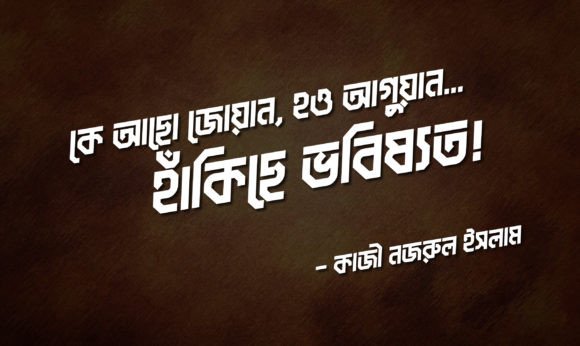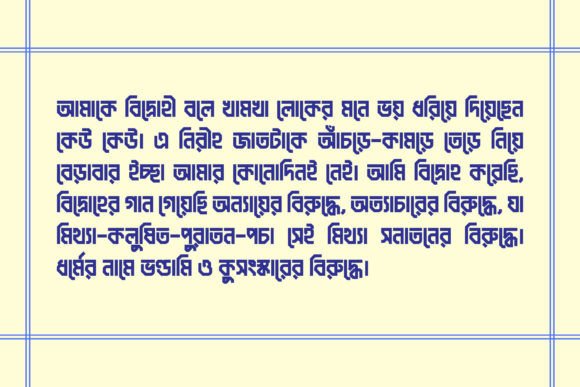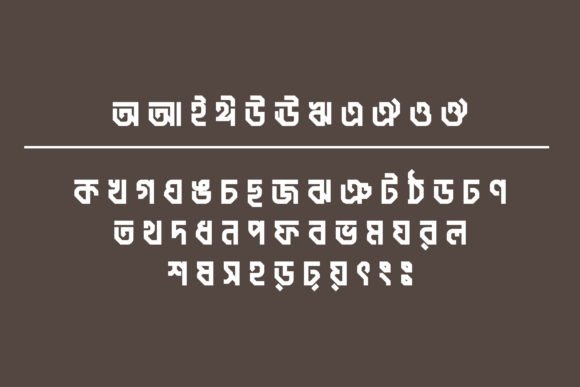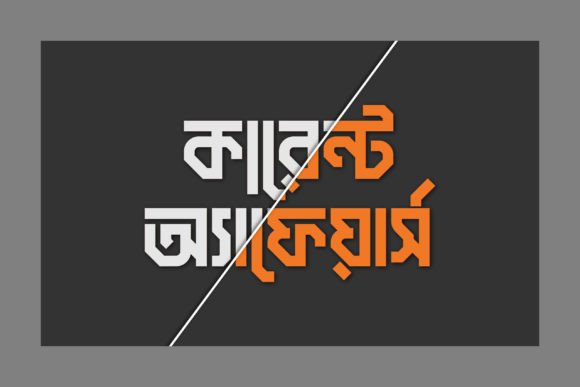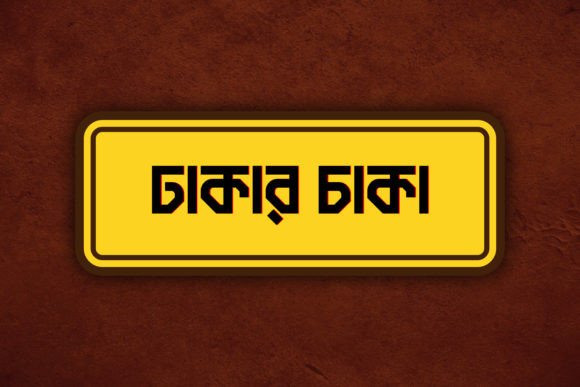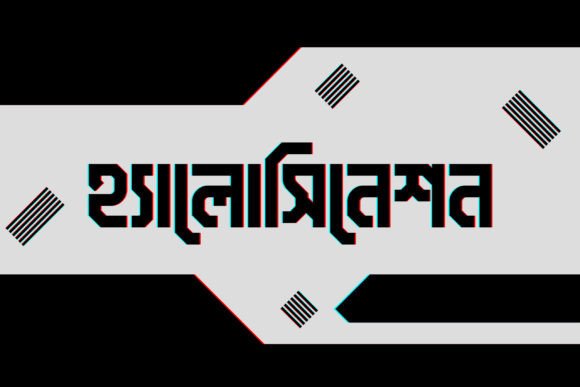
Discover the Power of Dabanol (দাবানল ফন্ট) Font: Elevate Your Designs with a Bold and Modern Bangla Typeface
In the world of typography, a font can make or break a design. For Bangla language users, finding the right font that combines elegance, simplicity, and modernity can be a daunting task. However, look no further than Dabanol (দাবানল ফন্ট), a distinctive and bold Bangla font that is taking the design world by storm.
What is Dabanol Font?
Dabanol is a carefully crafted Bangla font that seamlessly blends simplicity with a modern aura. With 422 glyphs and 196 characters, this font is designed to cater to a wide range of design needs. Its unique and elegant design makes it an ideal choice for various applications, including title headings, book covers, T-shirts, mobile apps, and movie names.
Key Features of Dabanol Font
- Bold and Distinctive Design: Dabanol font boasts a bold and distinctive design that instantly grabs attention. Its clean lines and modern style make it perfect for designs that require a strong visual impact.
- Extensive Character Set: With 422 glyphs and 196 characters, Dabanol font offers an extensive character set that can cater to a wide range of design needs.
- Multimedia Versatility: Dabanol font is designed to be versatile and can be used across various media applications, including print, digital, and web designs.
- Easy to Read: Despite its bold design, Dabanol font is easy to read, making it perfect for body text and headings.
Use Cases for Dabanol Font
Dabanol font is an excellent choice for various design projects, including:
- Title Headings: Use Dabanol font to create striking title headings that instantly grab attention.
- Book Covers: Dabanol font is perfect for book covers, adding a touch of elegance and sophistication to your design.
- T-Shirts and Merchandise: Create stunning T-shirts and merchandise with Dabanol font, adding a bold and modern touch to your designs.
- Mobile Apps: Use Dabanol font to create visually appealing mobile apps that stand out in the crowd.
- Movie Names: Dabanol font is an excellent choice for movie names, adding a touch of glamour and excitement to your title designs.
Benefits of Using Dabanol Font
Using Dabanol font can elevate your designs in several ways:
- Increased Visual Appeal: Dabanol font adds a touch of elegance and sophistication to your designs, increasing their visual appeal.
- Enhanced Readability: Despite its bold design, Dabanol font is easy to read, making it perfect for body text and headings.
- Versatility: Dabanol font can be used across various media applications, making it a versatile addition to your design arsenal.
- Uniqueness: Dabanol font is a unique and distinctive typeface that sets your designs apart from the rest.
| Font Name | Dabanol (দাবানল ফন্ট) Font |
| Author | Abuhasnat |